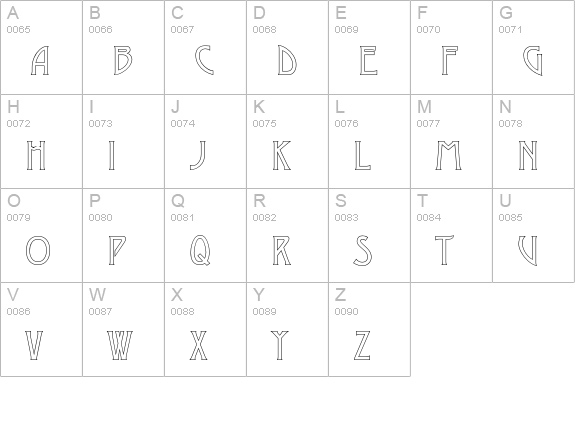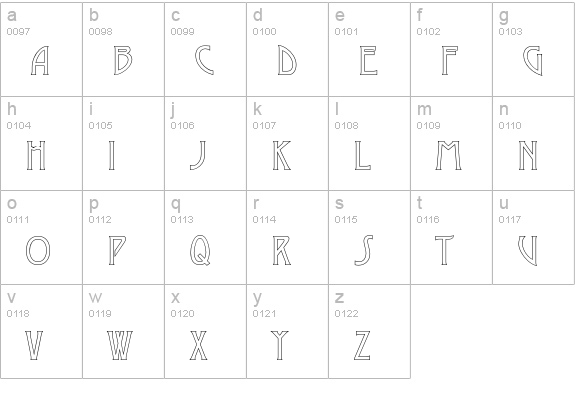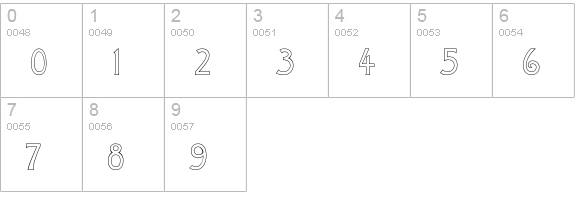
Desdemona Font Details
Desdemona font is a stunning display typeface that exudes elegance and sophistication. With its graceful curves and delicate serifs, Desdemona is perfect for adding a touch of refinement to any design project. Whether you're working on invitations, logos, or branding materials, this font will make your text stand out with its timeless appeal. What makes Desdemona font even more special is that it is completely free to download. Yes, you read that right - you can easily access this beautiful typeface at FontsMarket.com without any cost. So why wait? Elevate your designs today with Desdemona font and let its beauty speak for itself.